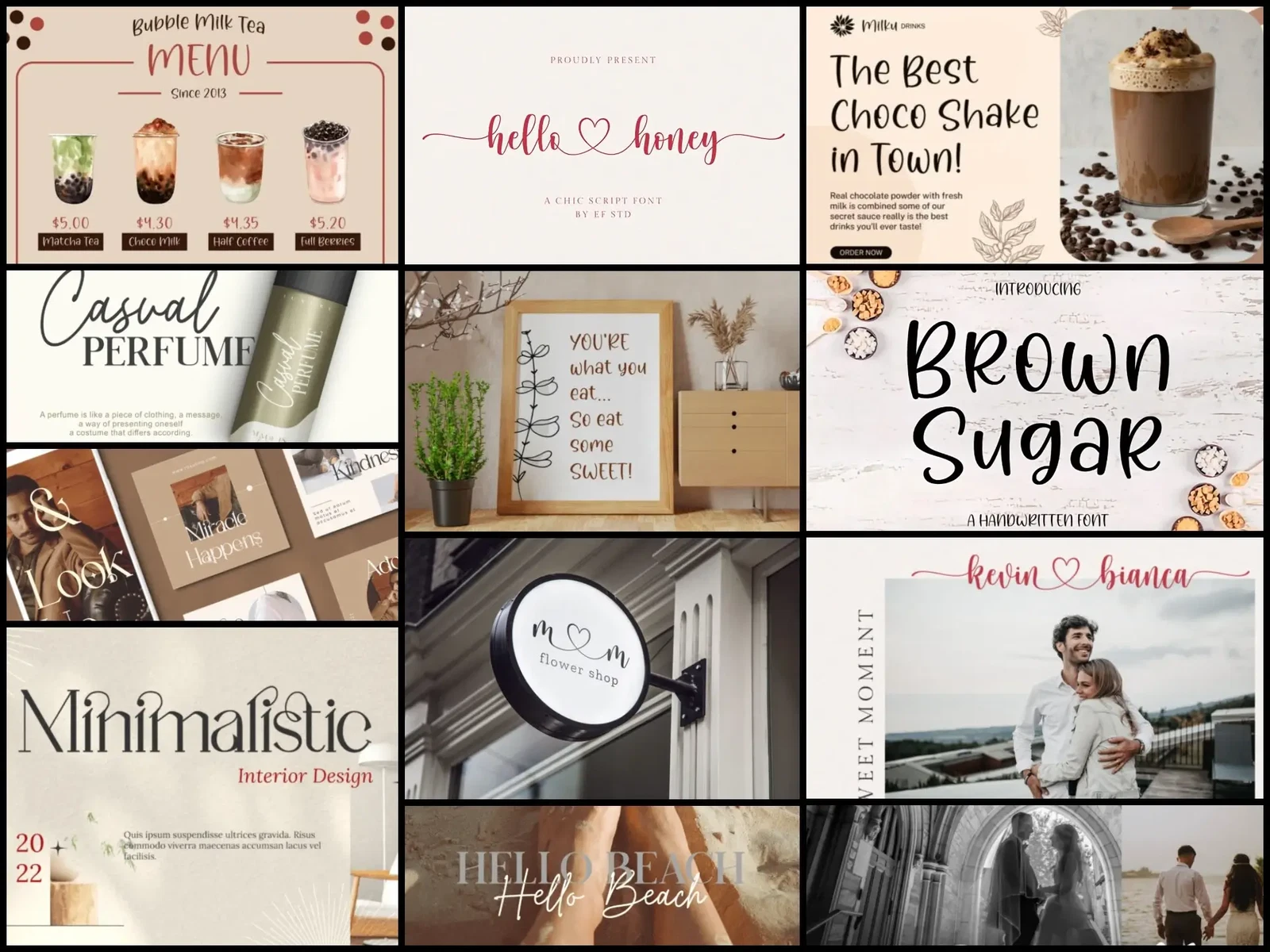
The Script Collection Font Bundle – Calligraphy Font Set
Discover timeless elegance with The Script Collection Font Bundle, a carefully curated set of 83 script and calligraphy fonts designed for creative projects that need a softer, more personal feel.
After browsing through bundles like this for packaging mockups and Pinterest-style branding projects, one thing becomes obvious pretty quickly: not every script font is actually usable in real designs. Some look beautiful in previews but become difficult to read once you shrink them down for labels, social posts, or product packaging.
This collection feels more practical than most. The fonts lean decorative, but many still keep good spacing and readable letterforms, which honestly makes a big difference when you're working on actual client work or Etsy products.
A Bundle Made for Elegant Branding Projects
The fonts inside this collection work especially well for:
- Wedding invitations
- Beauty and skincare branding
- Greeting cards
- Product packaging
- Quote graphics
- Cricut and crafting projects
- Feminine logo concepts
- Social media templates
A lot of script bundles tend to repeat the same style over and over. Here, there’s a decent mix — some fonts feel clean and modern, while others lean more romantic and handwritten. That variety helps when you’re trying to match a specific mood instead of forcing one script font into every project.